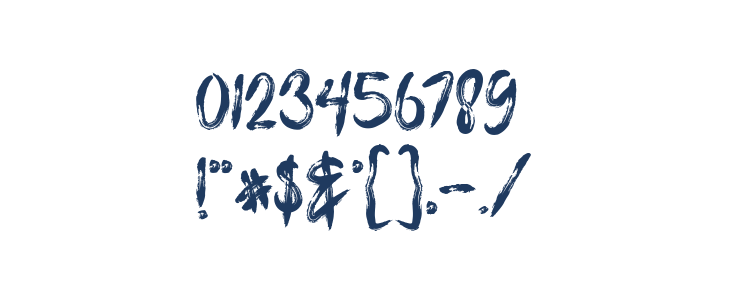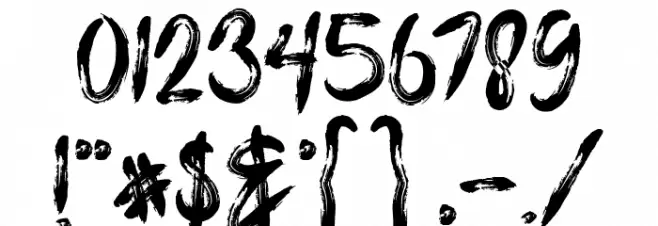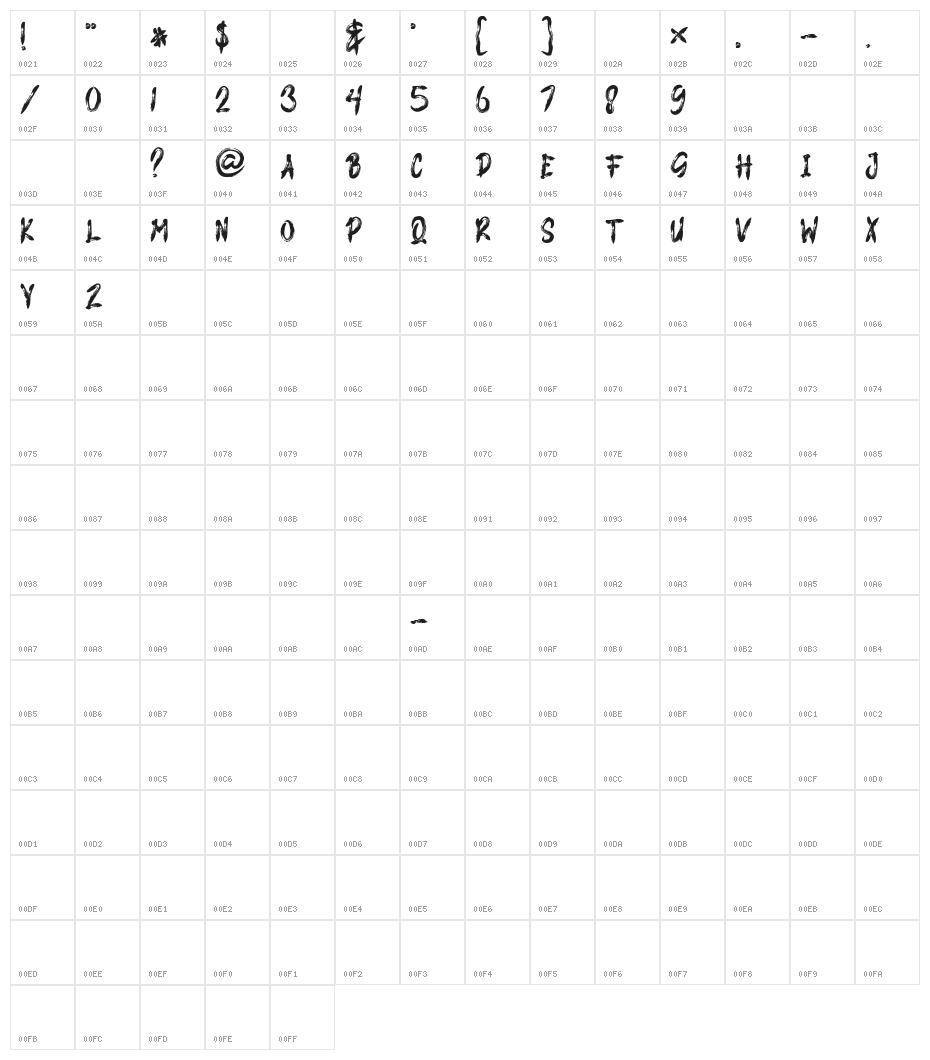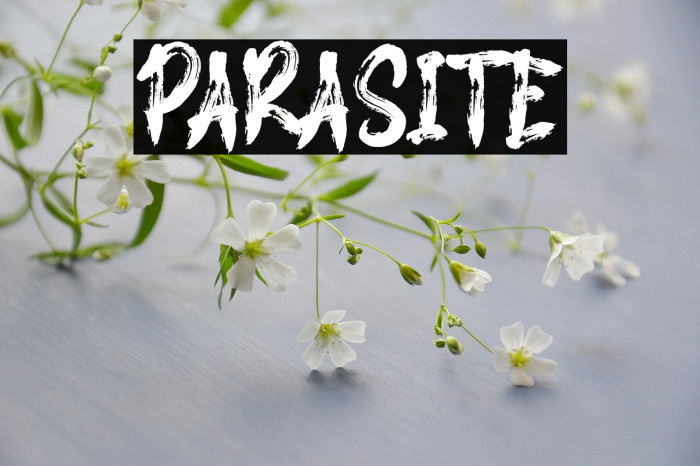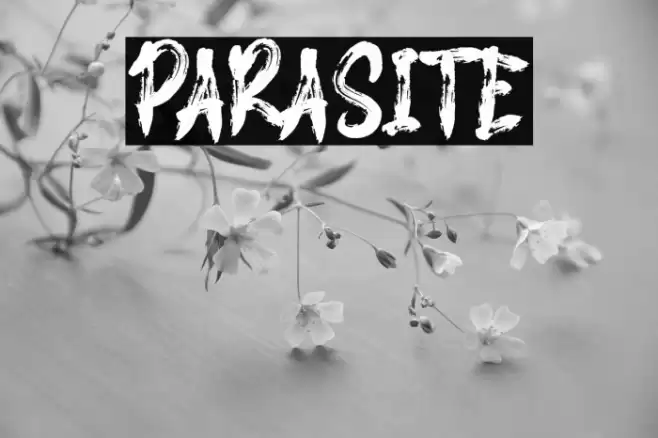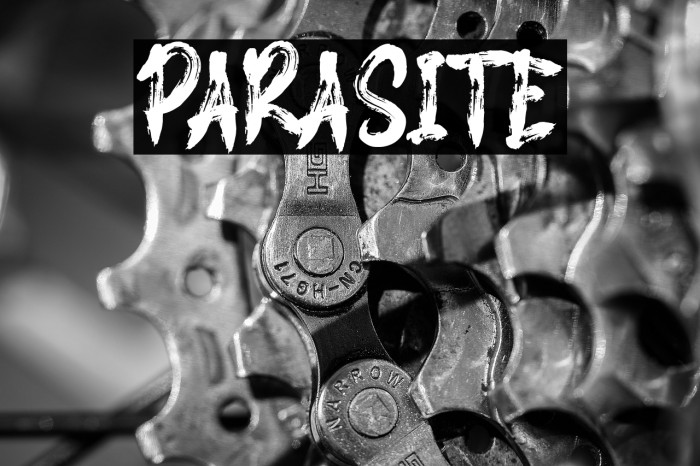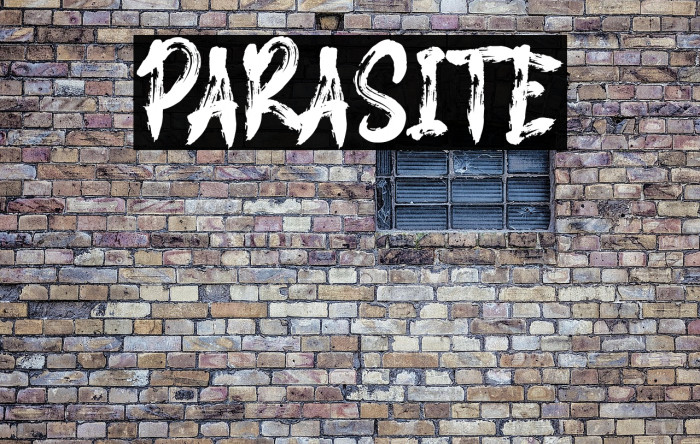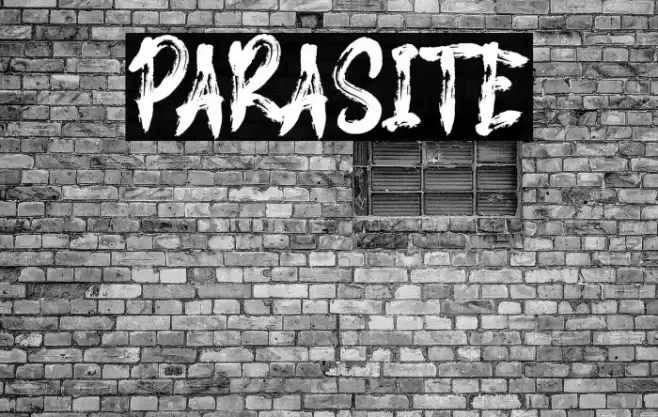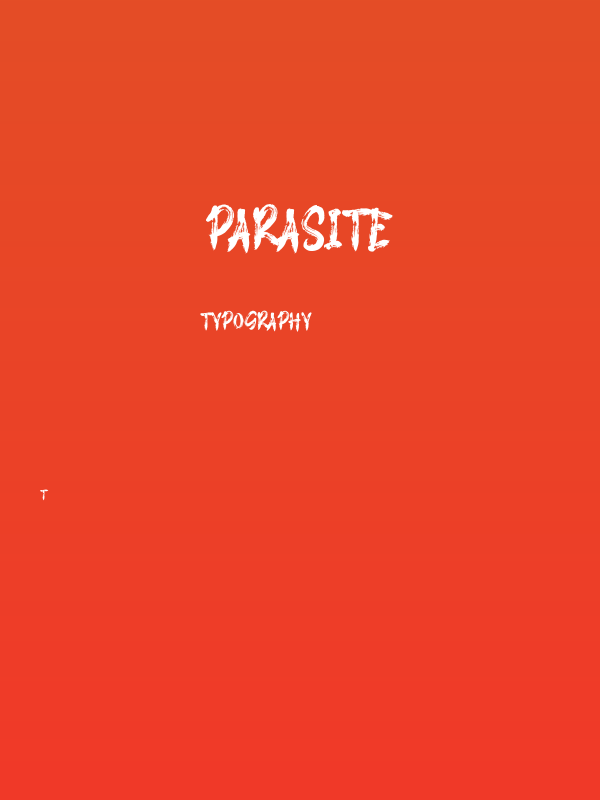
PARASITE Font
PARASITE Description
This font features a bold and expressive brushstroke style, giving it a dynamic and energetic appearance. The characters are crafted with a rough, textured finish that mimics the look of hand-painted letters. Each letter has a unique flair, with varying thicknesses and angles that create a sense of movement and spontaneity. The uppercase letters are particularly striking, with dramatic curves and sharp edges that command attention. The numerals and special characters maintain the same artistic style, ensuring consistency throughout. This font is ideal for projects that require a bold, artistic touch.
| Proposed Projects | Ideal for posters, album covers, branding, and any project needing an artistic, bold statement. |